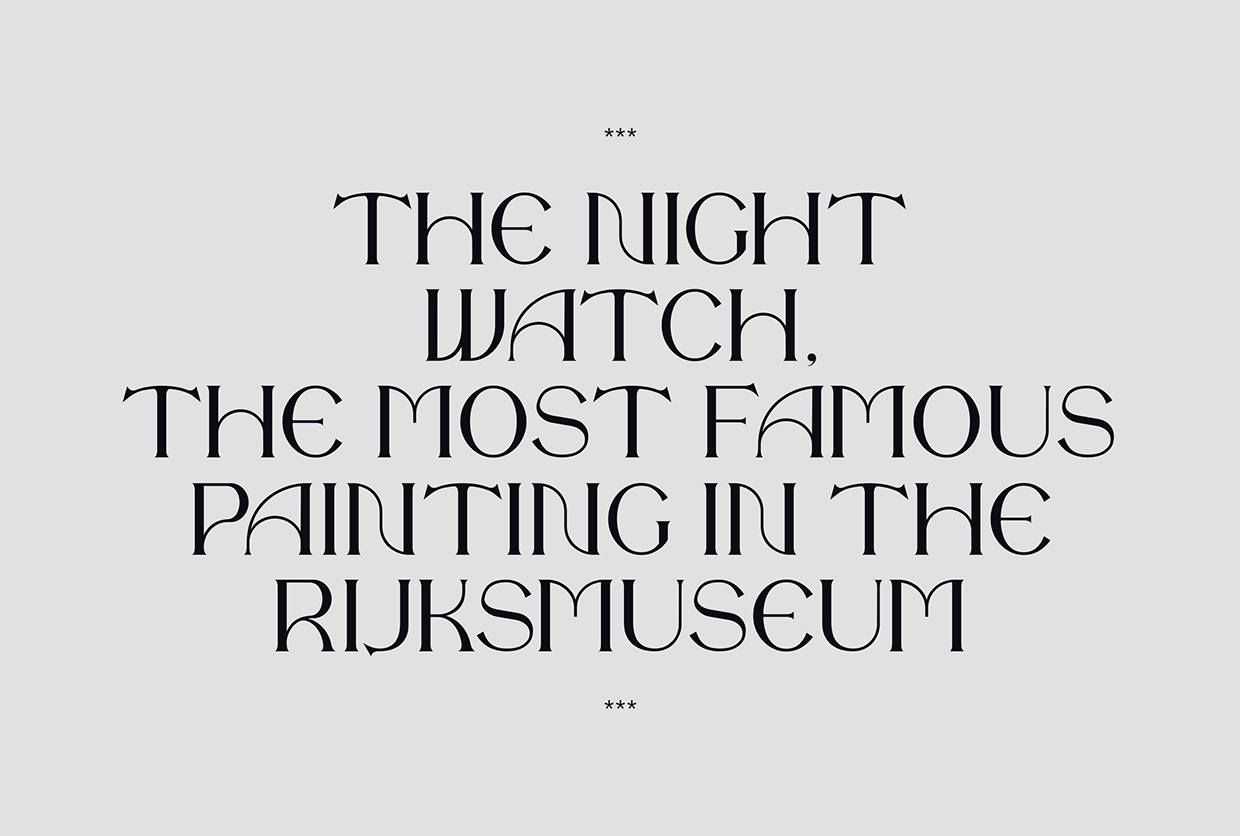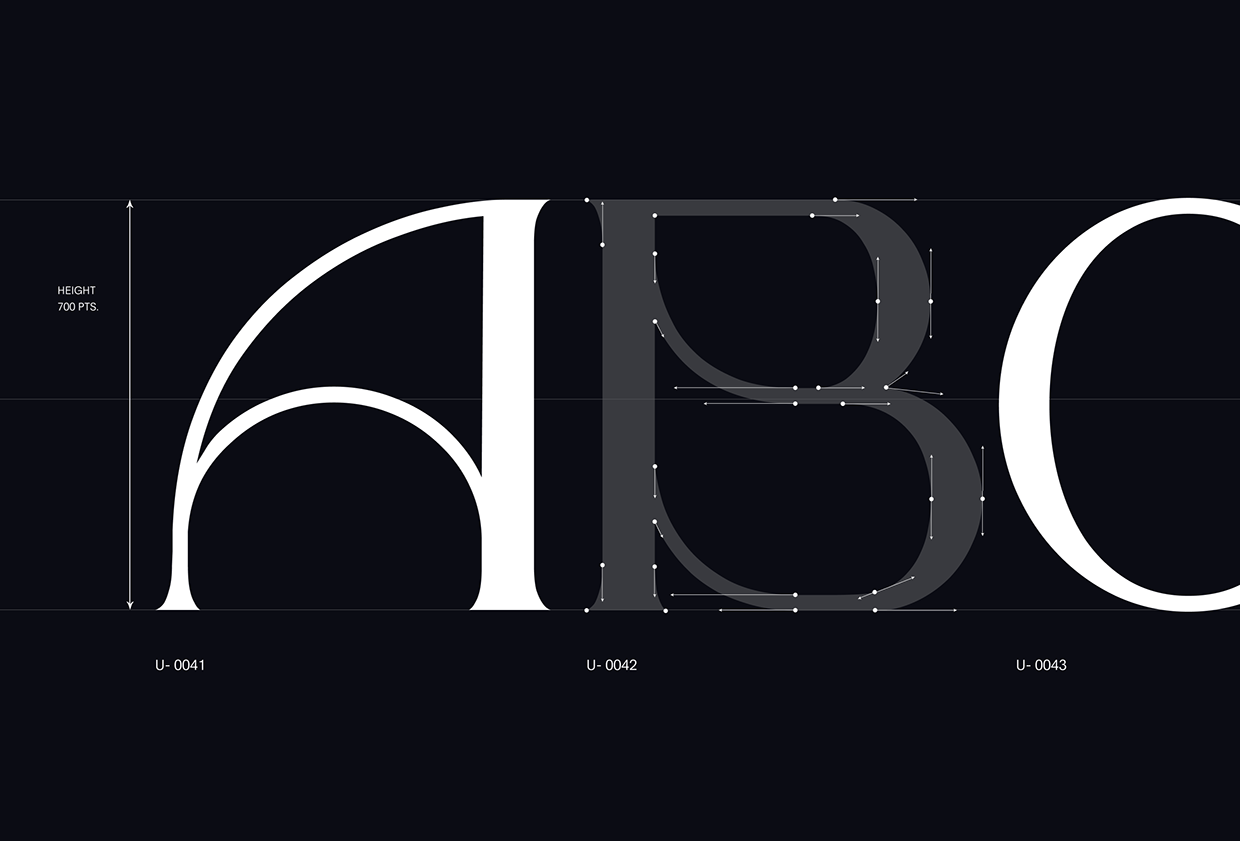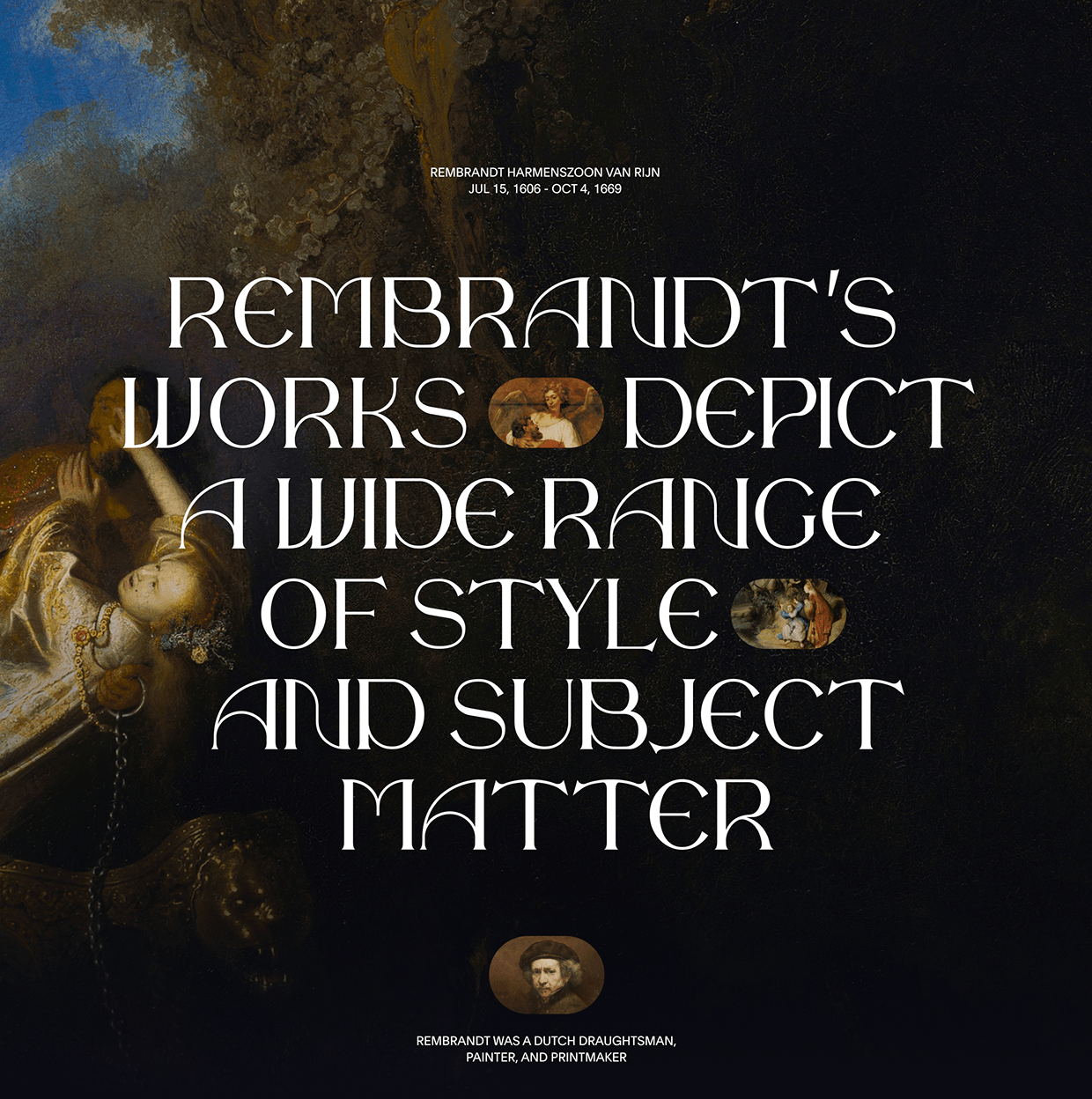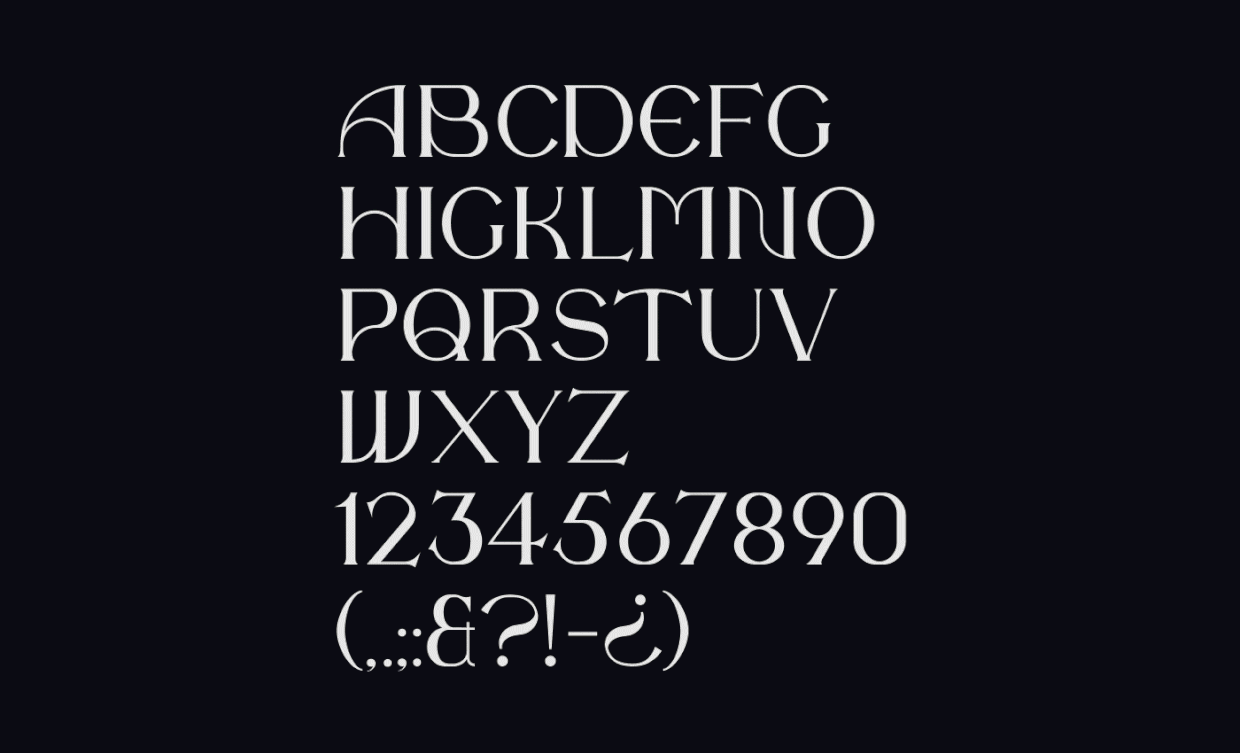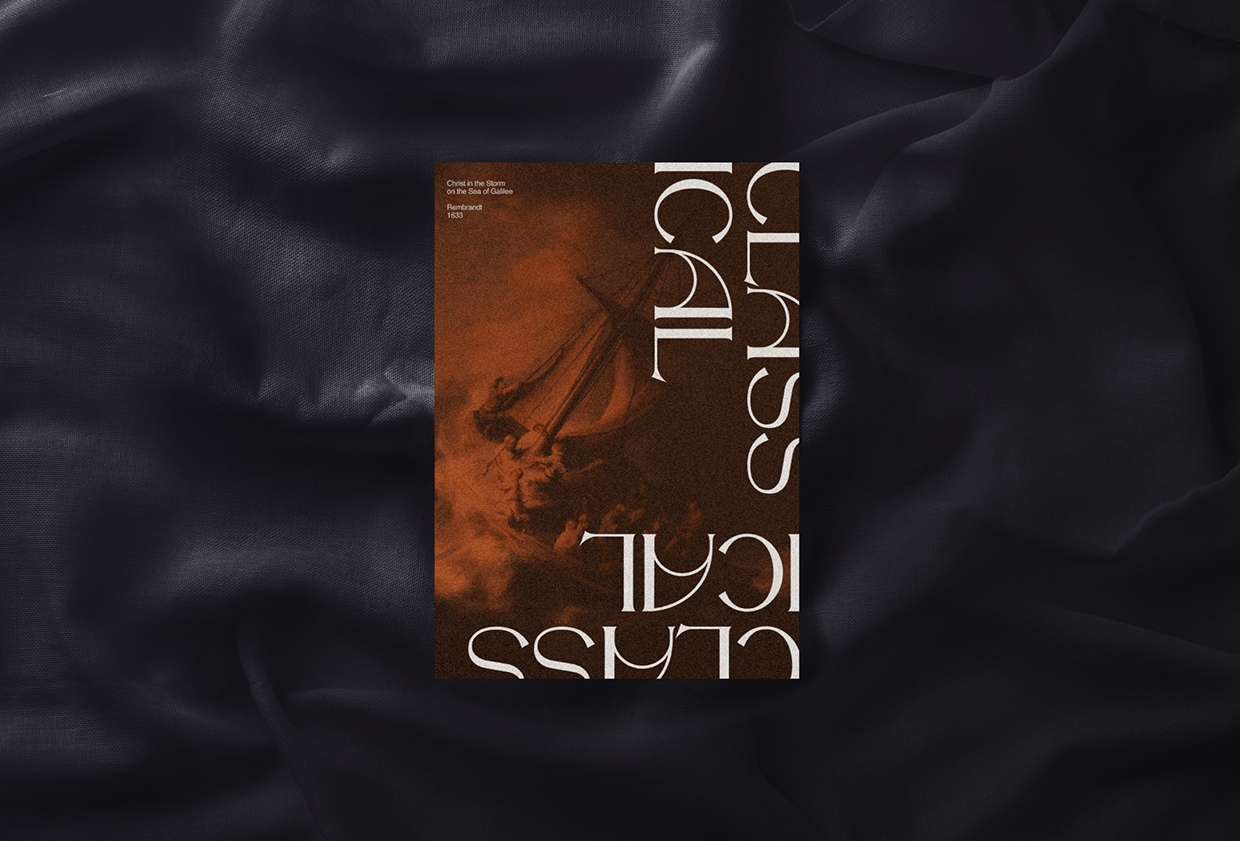
The Night Watch | Free Font
The Night Watch Font is a exquisity created serif typeface with rounded characteristic forms. It is perfect for headlines, short length text, branding and logotypes. And it can be used in identity of museum, gallery. The font is inspired by one of the most famous paintings in the world — The Night Watch (1642) by Rembrandt van Rijn, after which the font is named. The typeface includes uppercase letters, numerals, and punctuation marks.